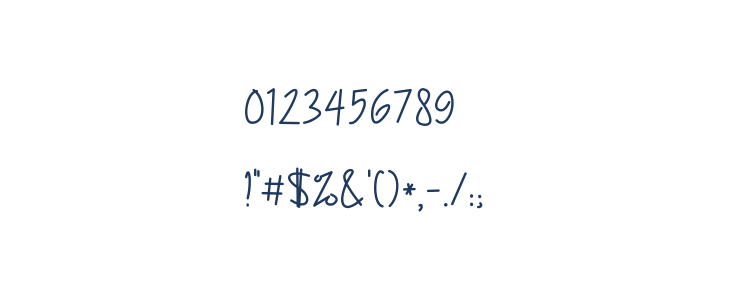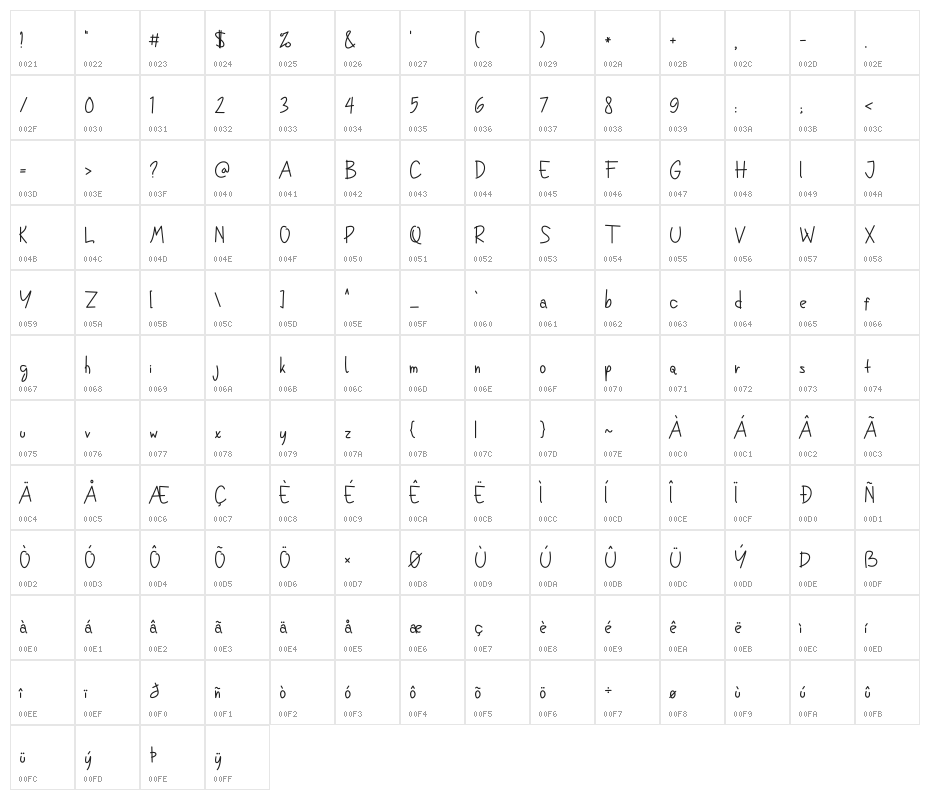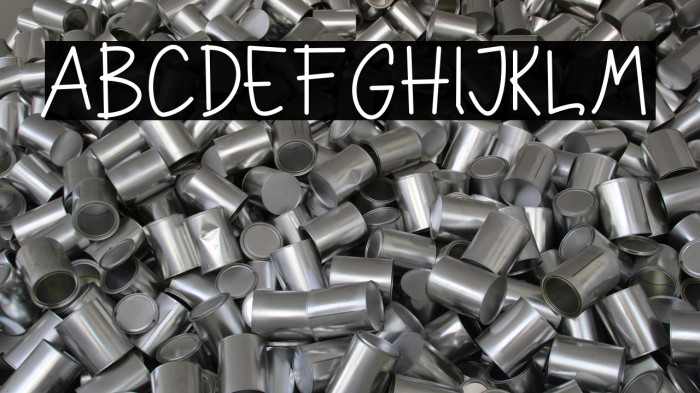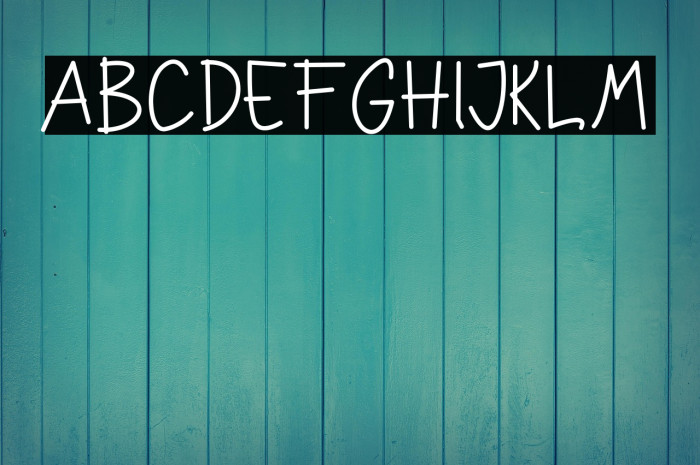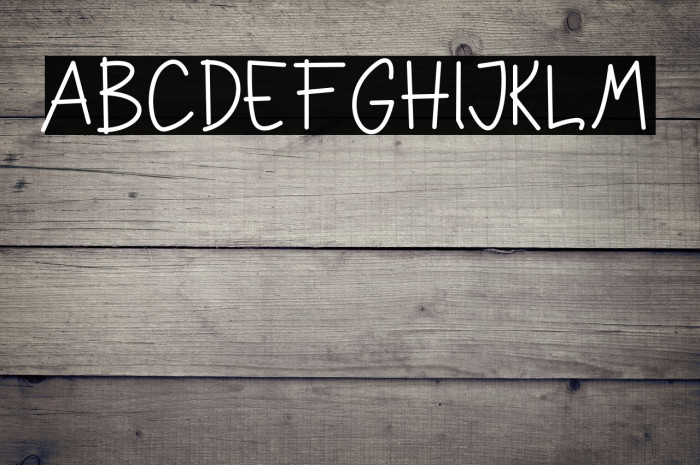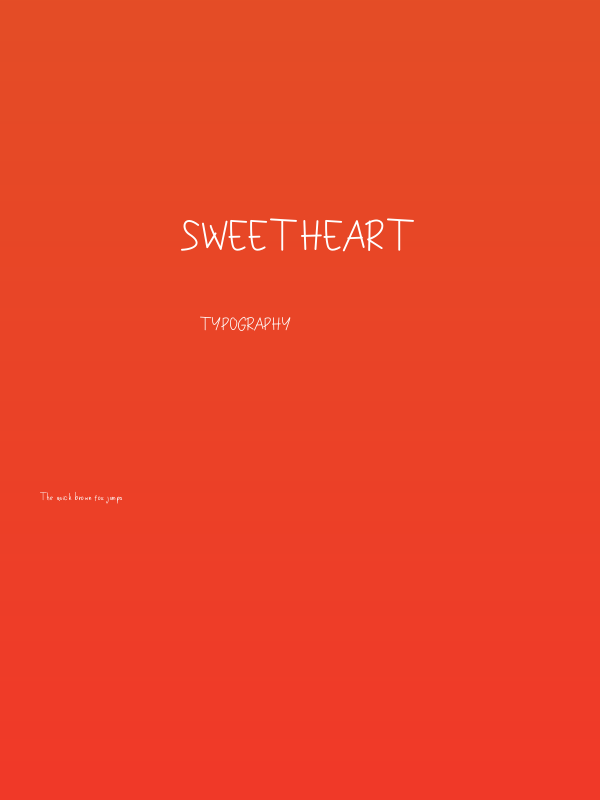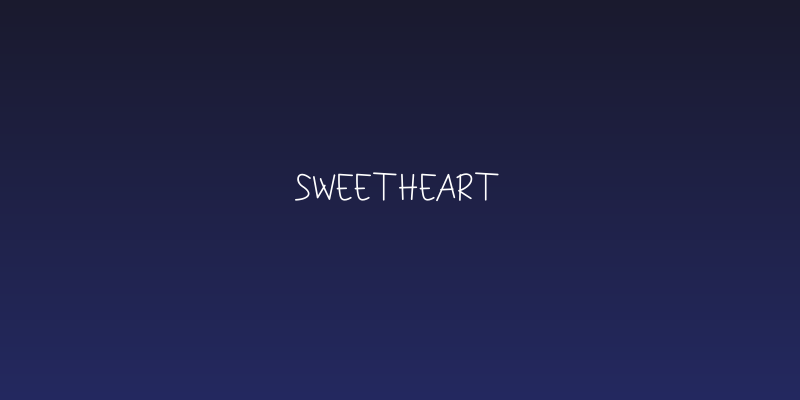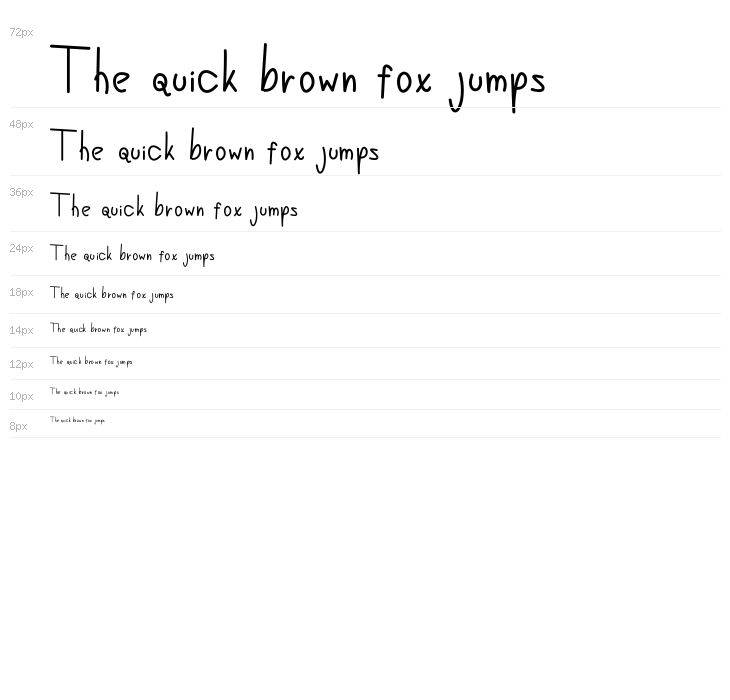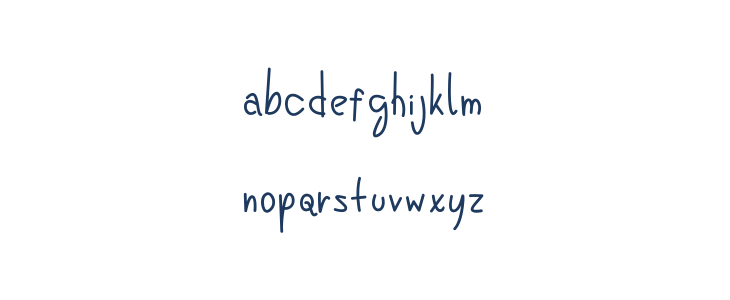
SweetHeart Font
SweetHeart Description
This font features a playful, handwritten style with a casual and friendly appearance. The characters are slightly irregular, adding to the charm and personal touch of the design. Each letter has a unique flair, with varying stroke widths that give it a lively and dynamic feel. The uppercase letters are tall and slightly narrow, while the lowercase letters maintain a consistent flow, enhancing readability. Numbers and special characters are crafted with the same whimsical style, making the font versatile for various creative projects. The overall look is approachable and informal, perfect for conveying warmth and personality.
Overall StyleCasual
Use CaseHeadlines, Logos, Informal Text
Proposed ProjectsIdeal for greeting cards, children's books, personal branding, and informal invitations.